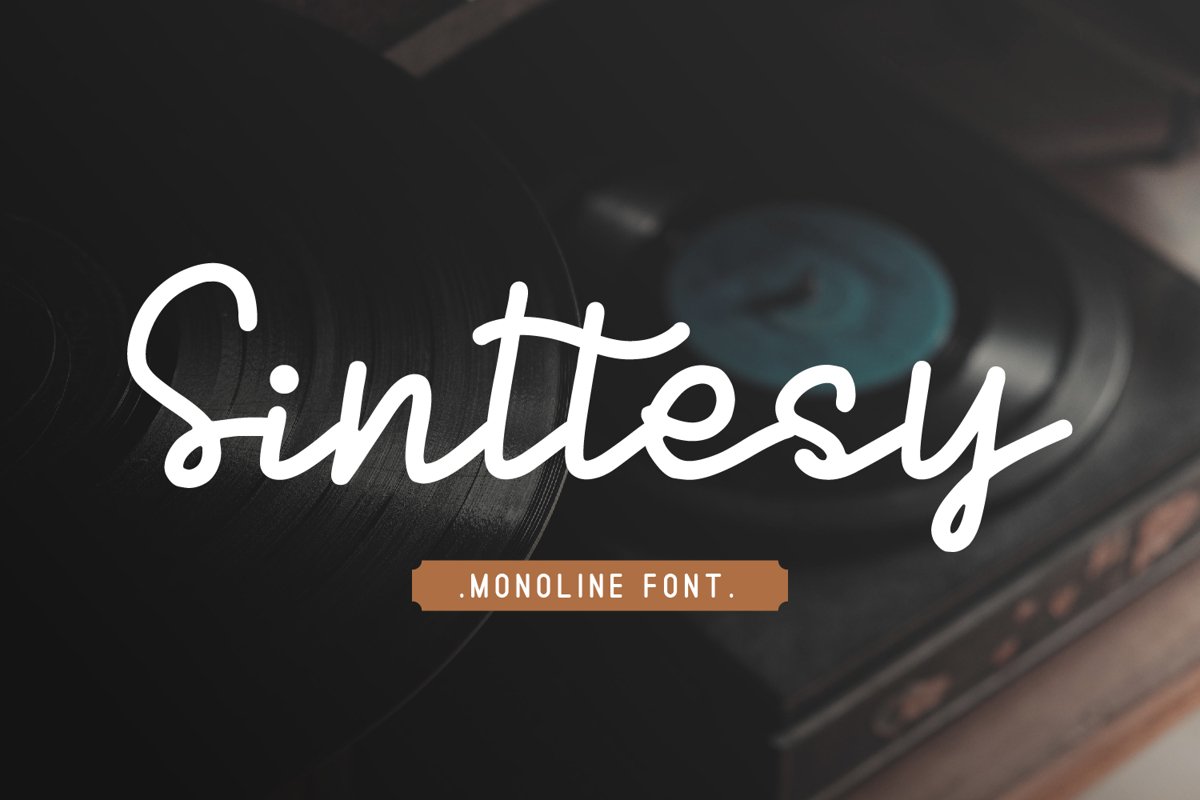
Sinttesy
Sintessy
Sinttesy Font with natural handwriting style perfect for
many different projects such as logos, branding, invitation, stationery,
wedding designs, social media posts, advertisements, product packaging, poster,
product designs, label, photography, watermark, special events or anything,
quotes, fashion, etc.